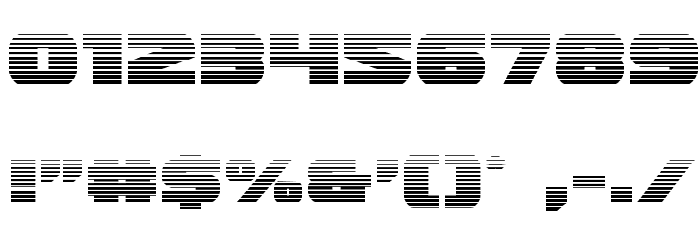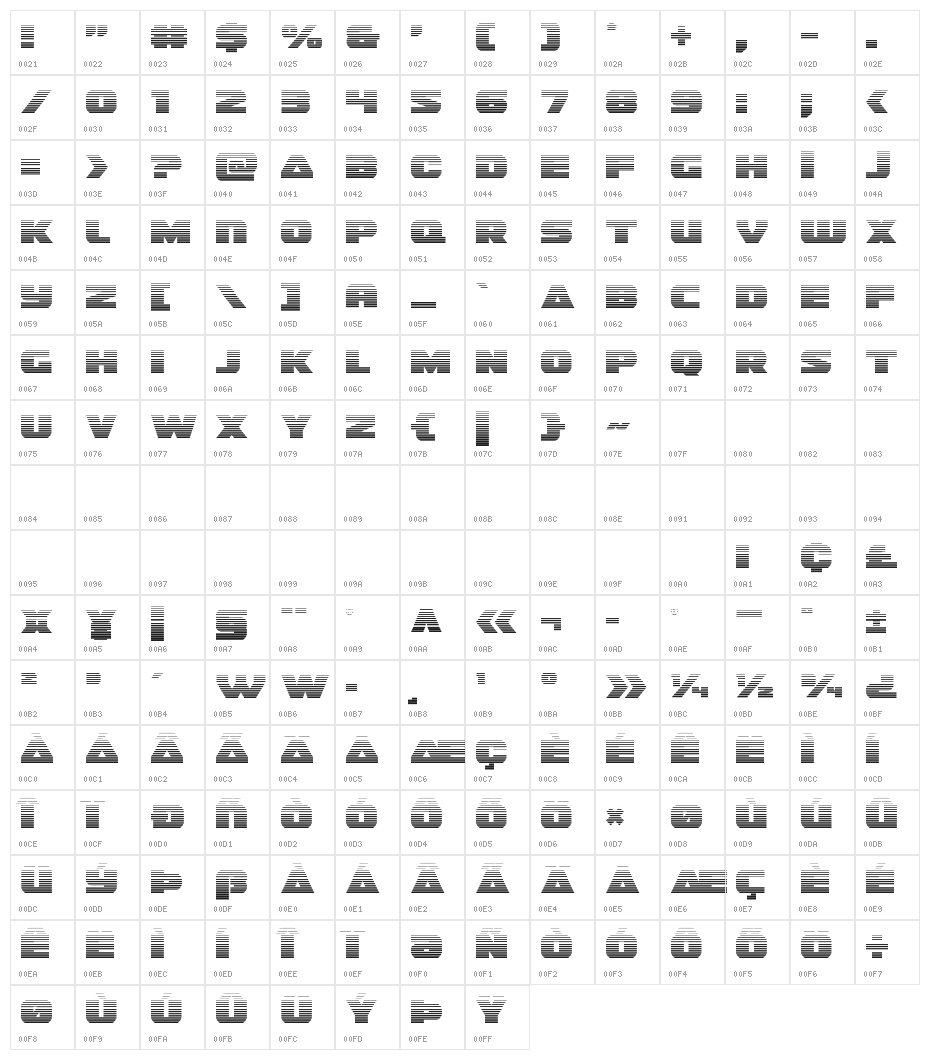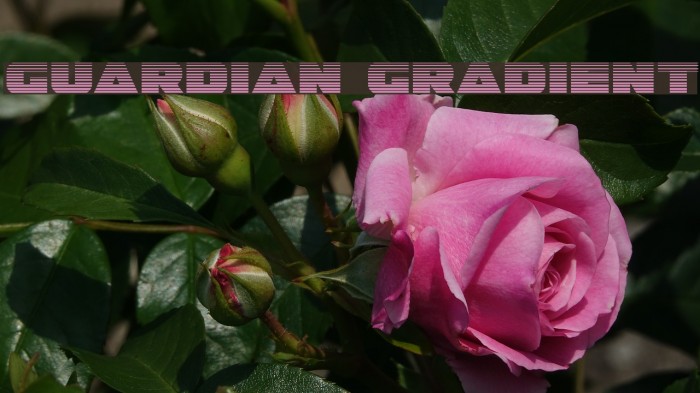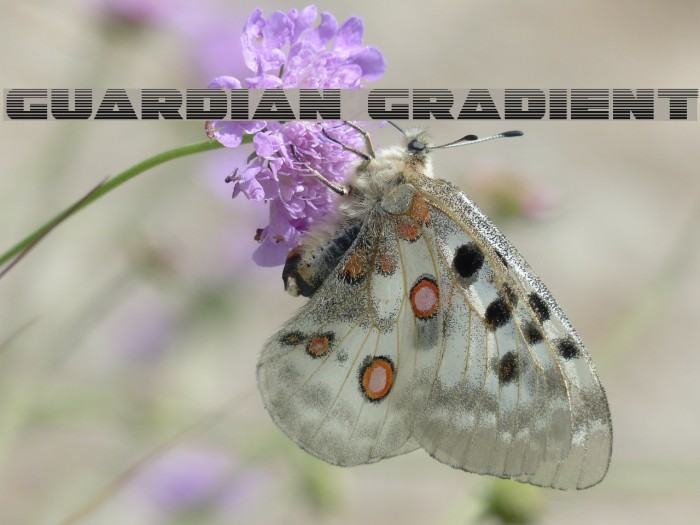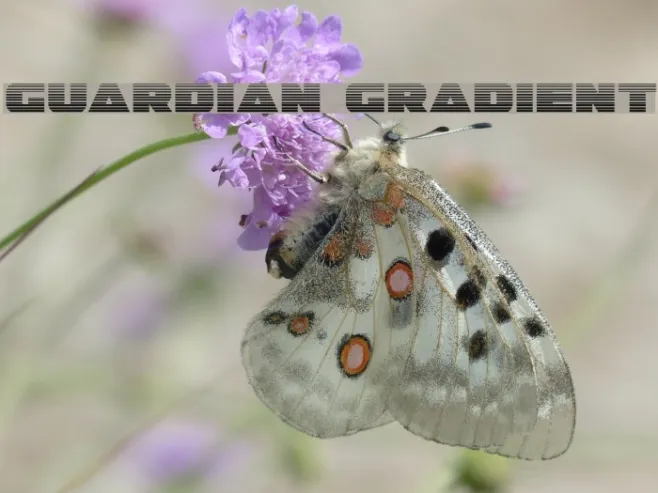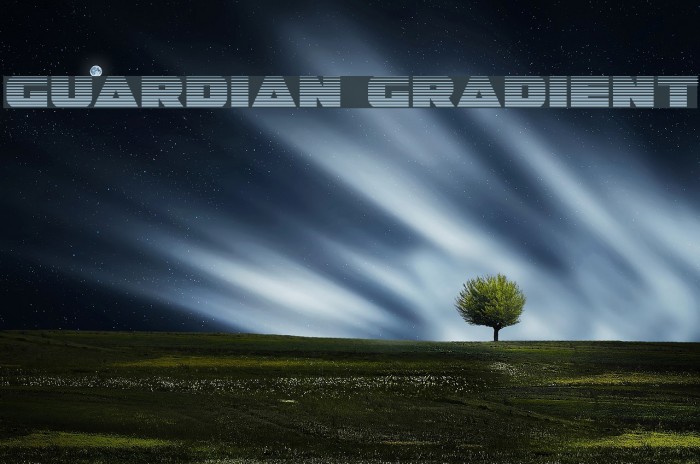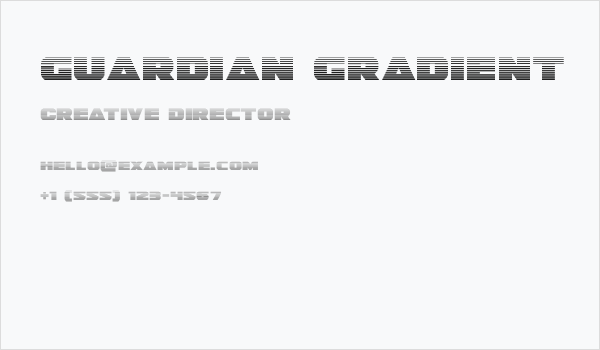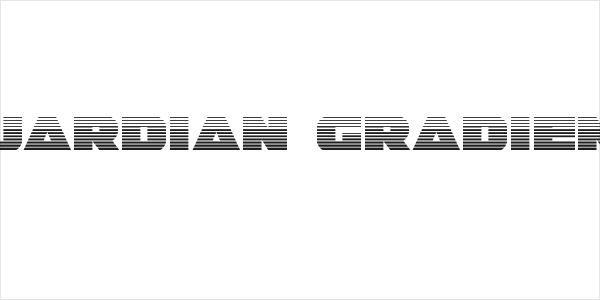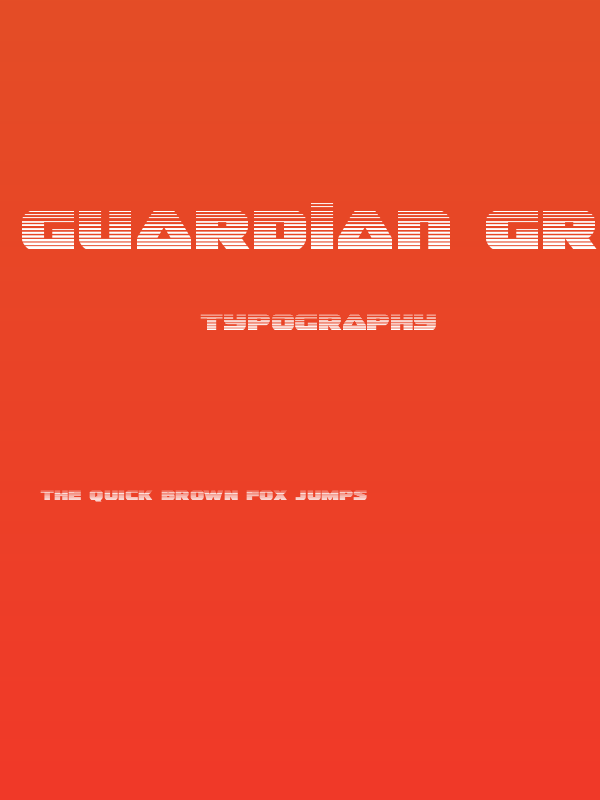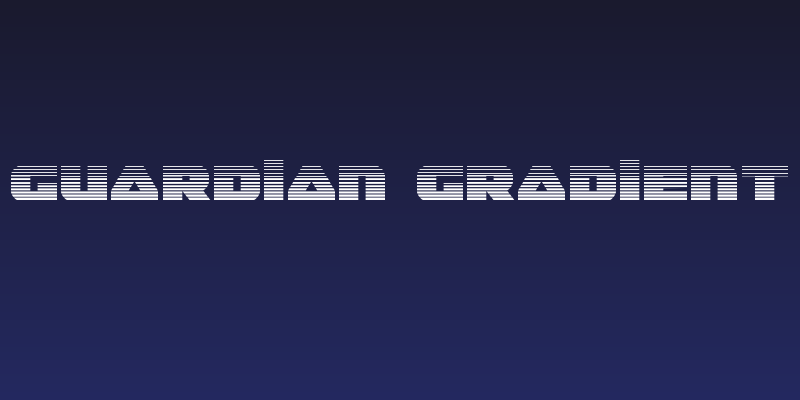
Guardian Gradient Font
Guardian Gradient Description
This font features a bold, futuristic design with a distinctive striped pattern running horizontally across each character. The geometric shapes and sharp edges give it a modern and dynamic appearance, making it stand out in any design. The uppercase and lowercase letters maintain a consistent style, with the stripes creating a sense of movement and depth. The numerals and special characters are equally bold and follow the same striped pattern, ensuring uniformity across all elements. This font is ideal for projects that require a strong visual impact and a contemporary feel.
| Proposed Projects | Ideal for sci-fi themed posters, modern branding, video game titles, and tech-related designs. |